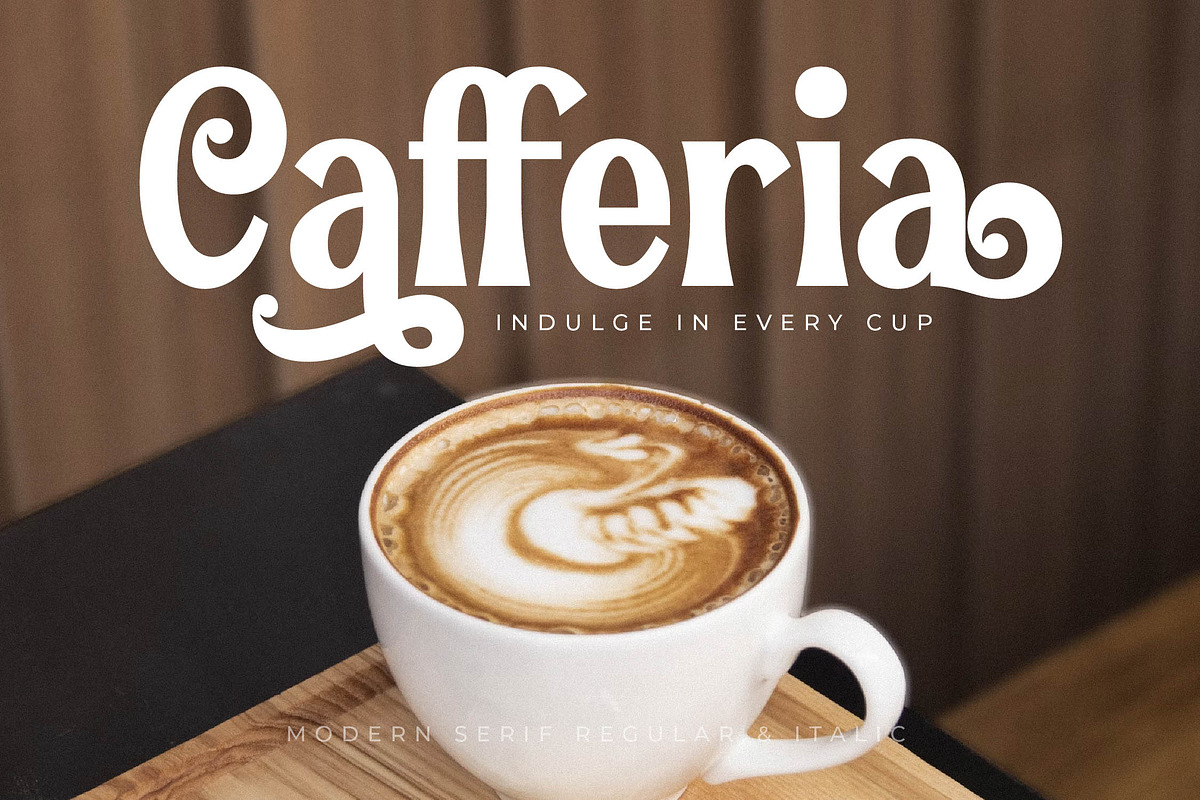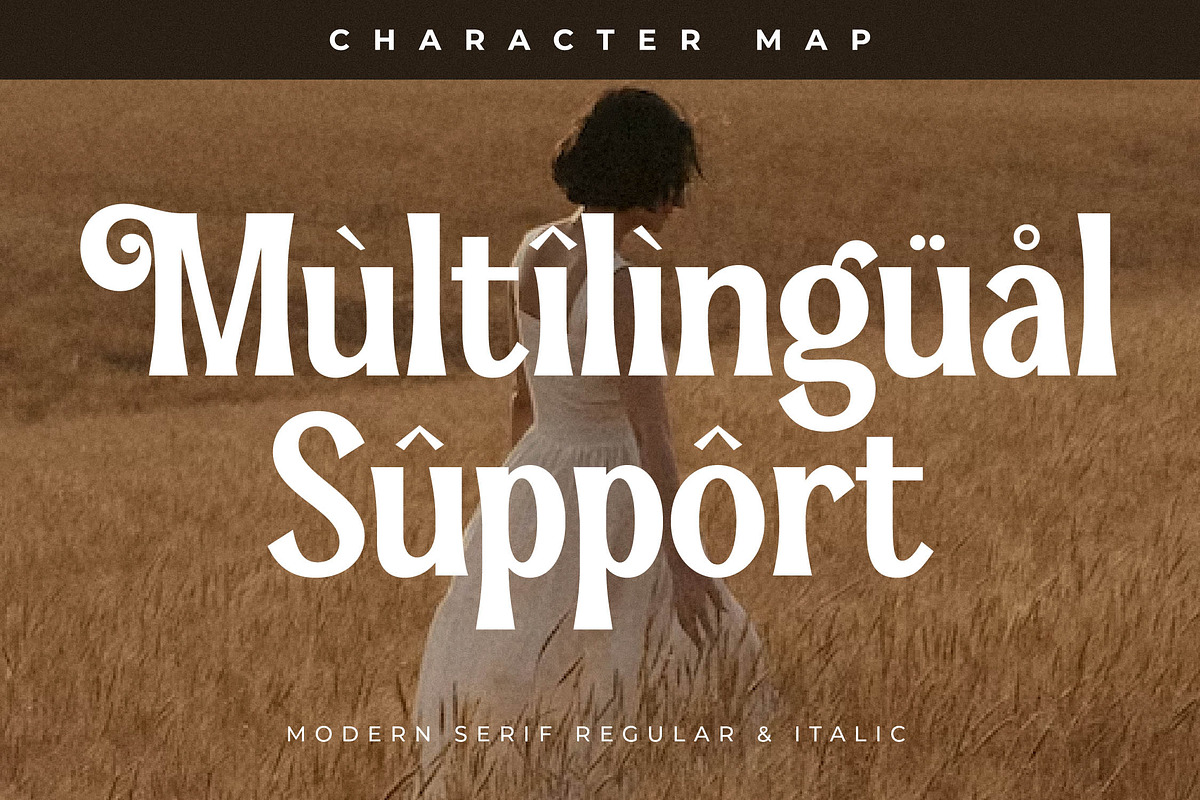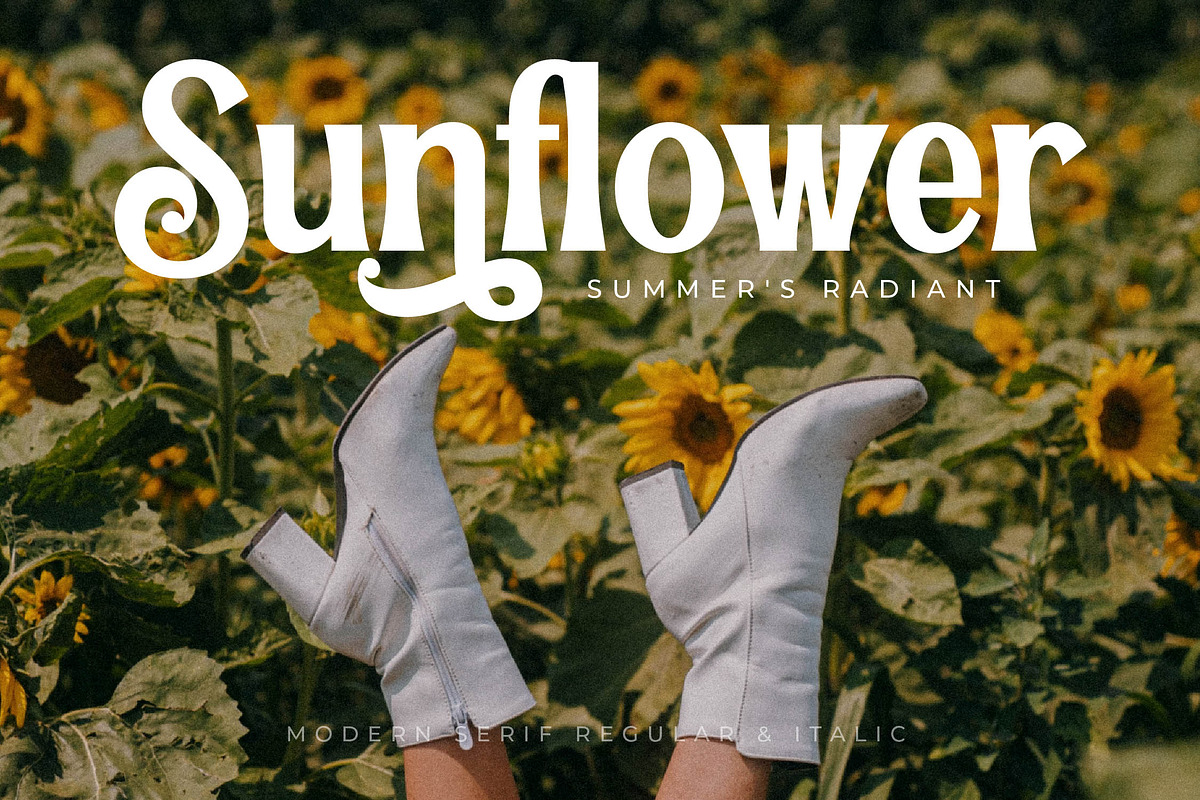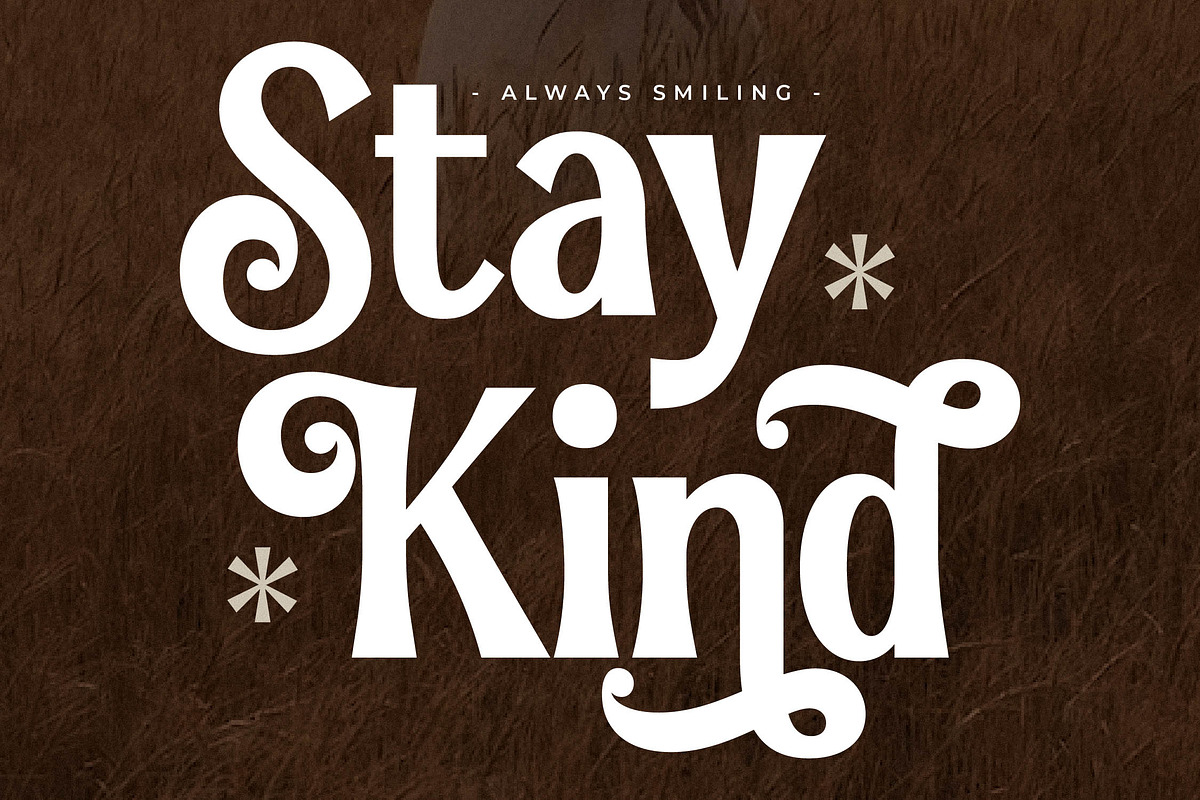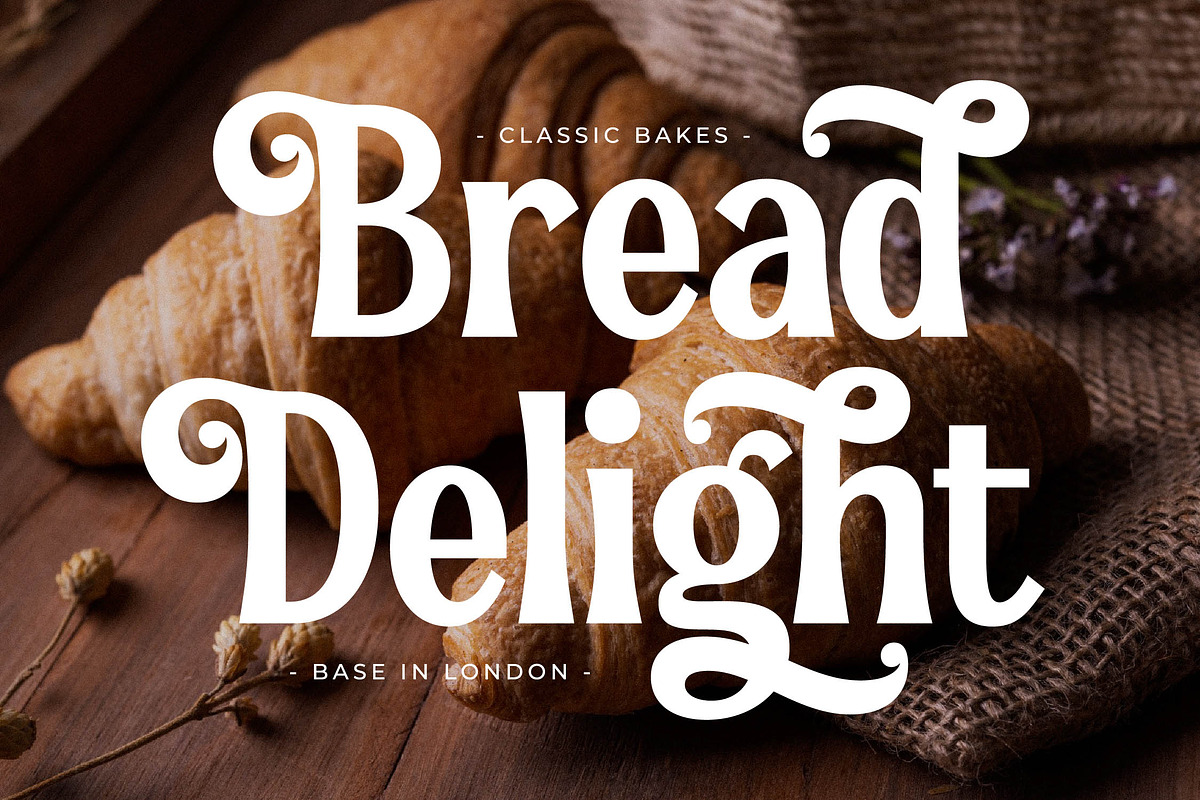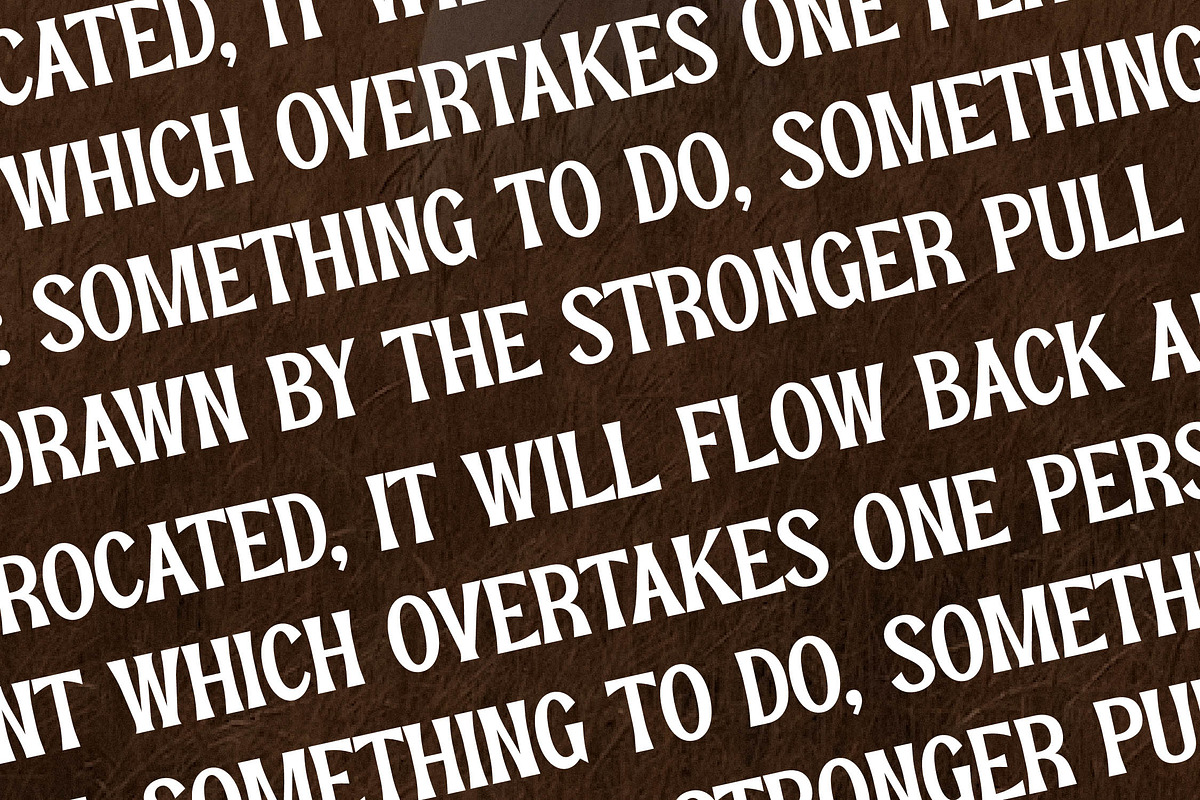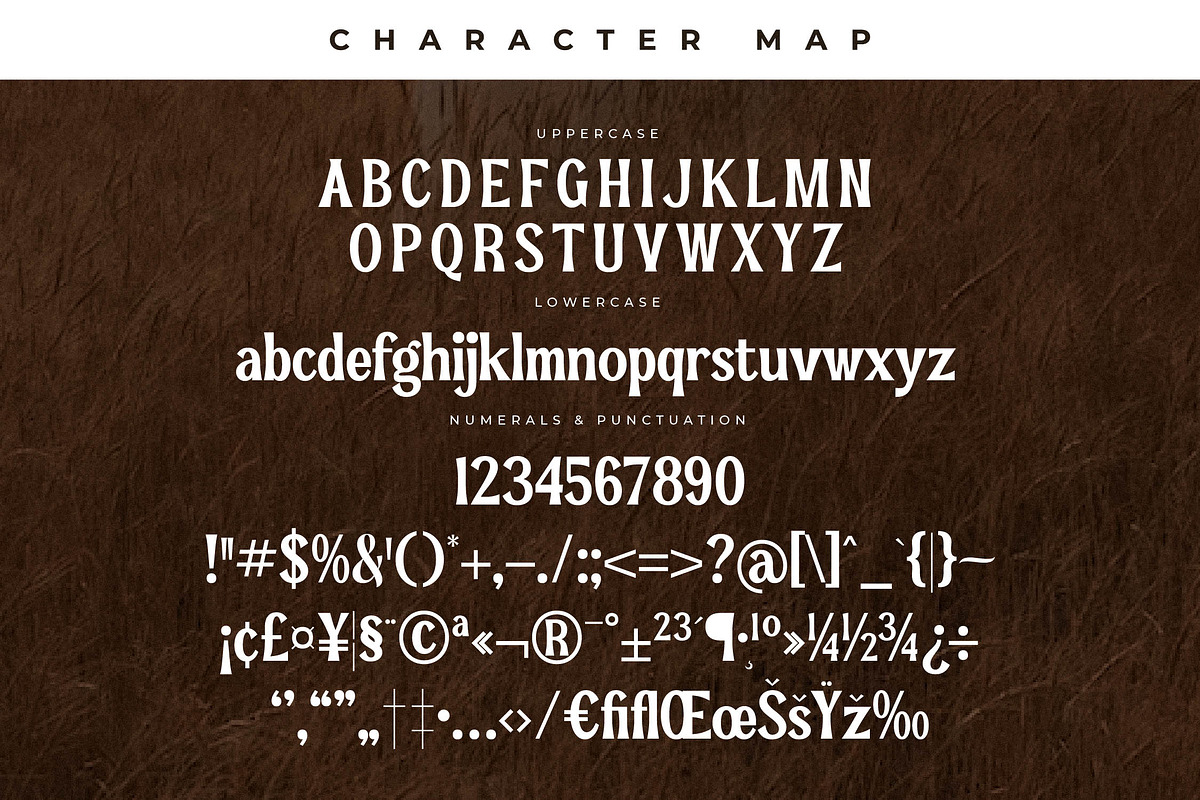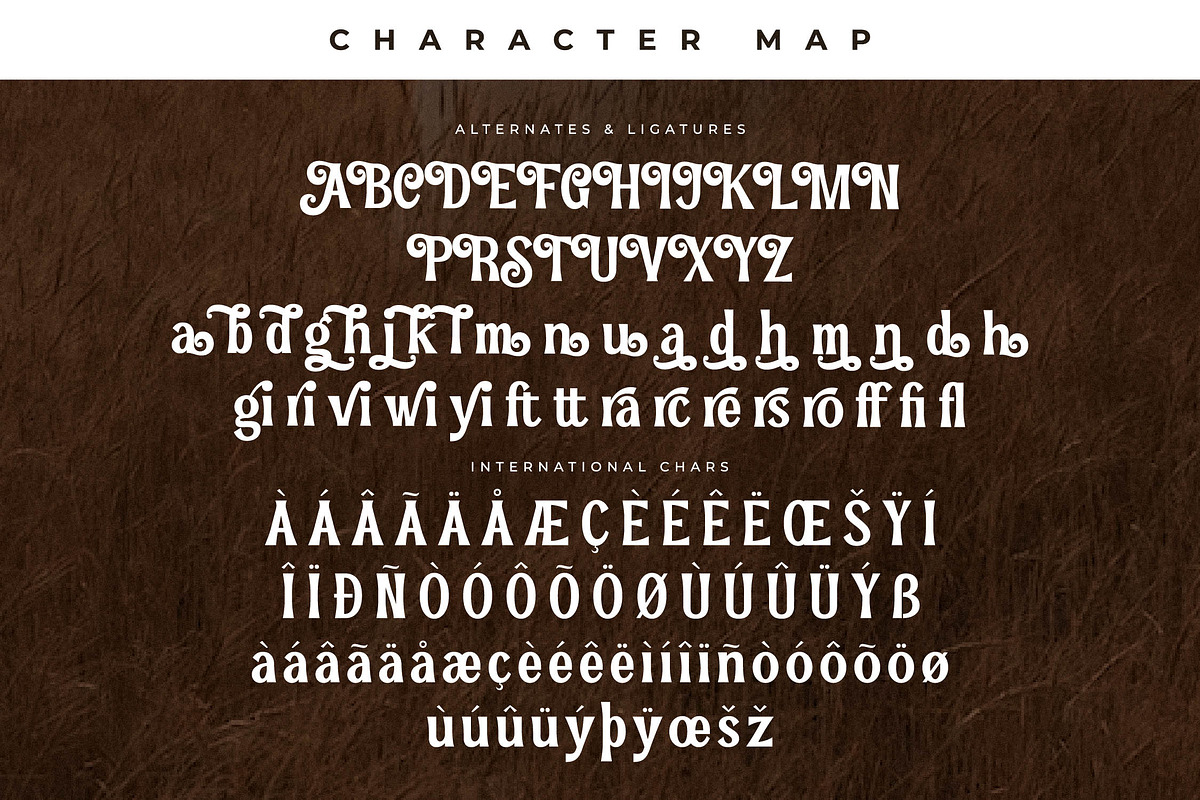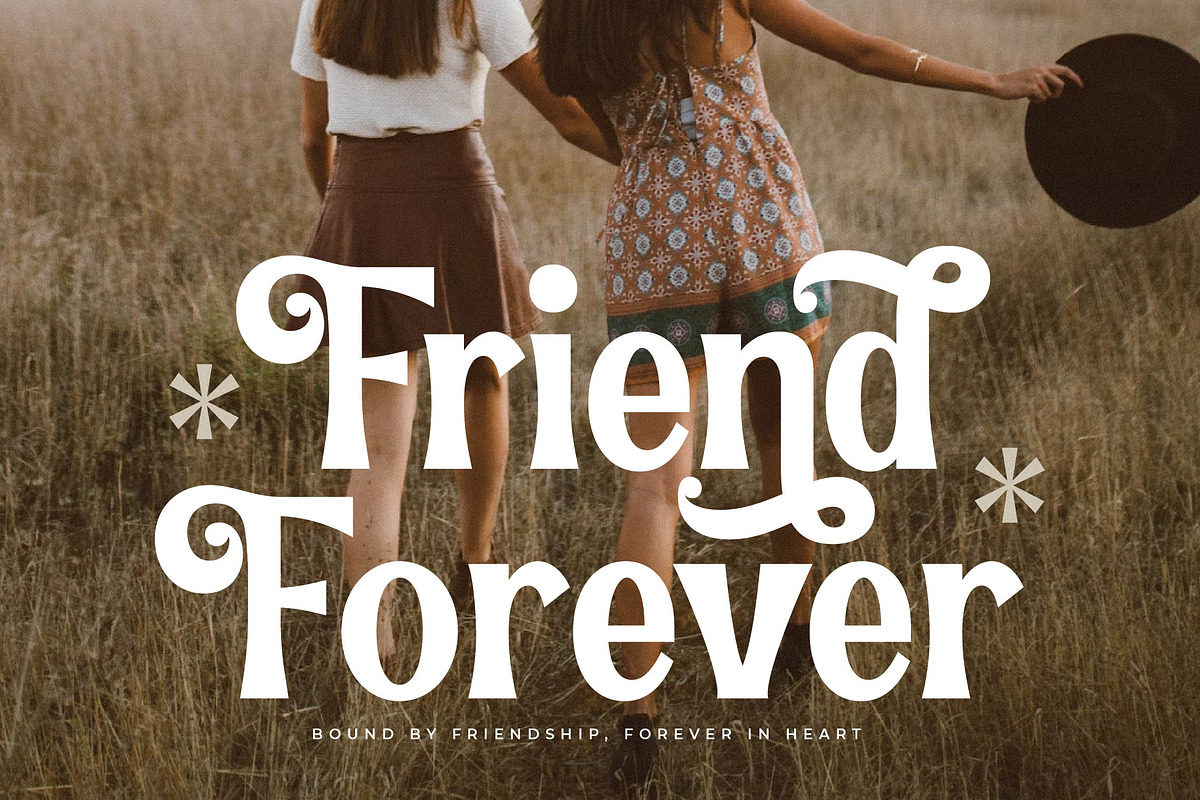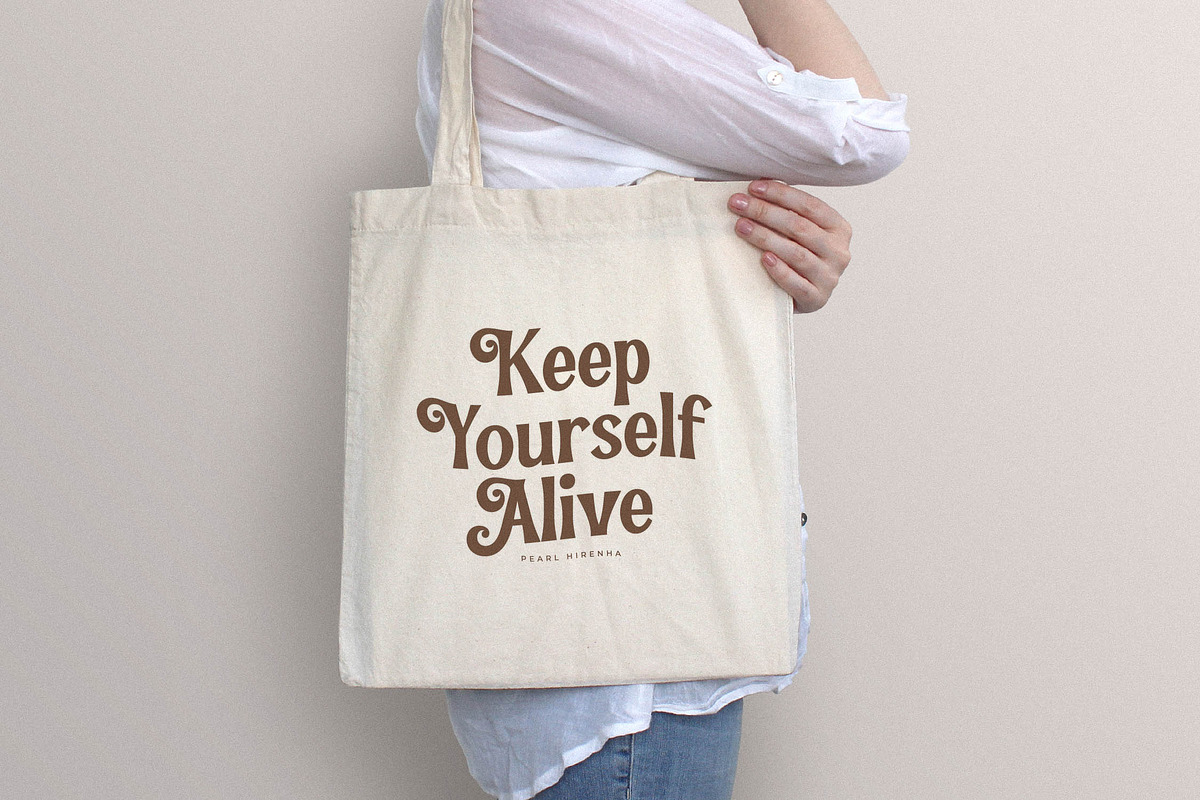
Pearl Hirenha Modern Serif
Proudly present Pearl Hirenha Typeface , created by Storytype, A serif modern and classic typeface that has own unique style & modern look. This typeface is perfect for an elegant & luxury logo, book or movie title design, fashion brand, magazine, clothes, lettering, quotes, and so much more.